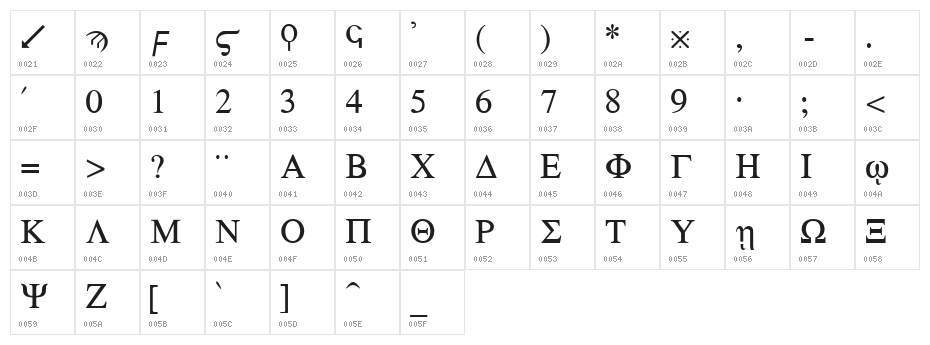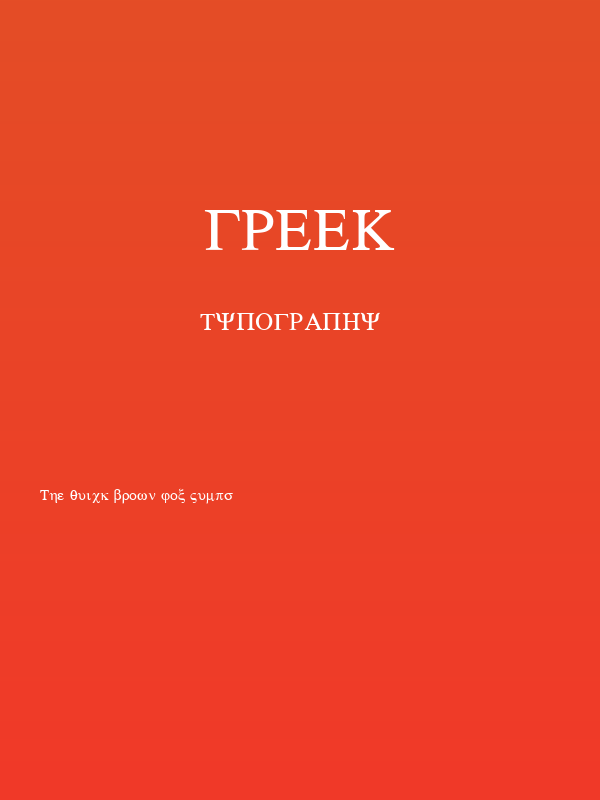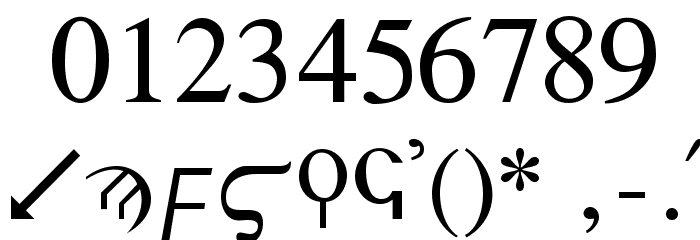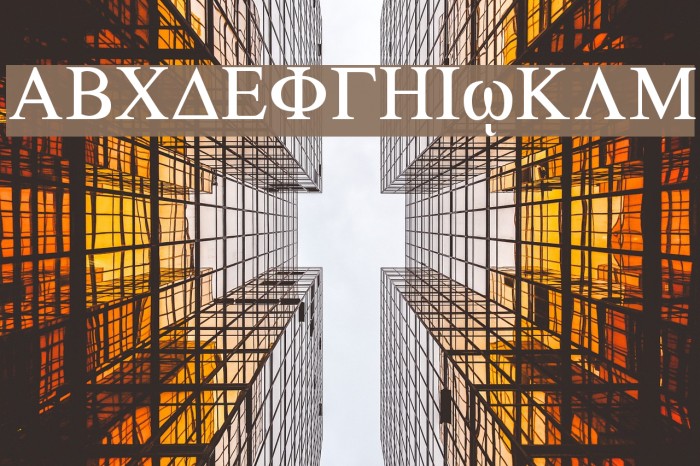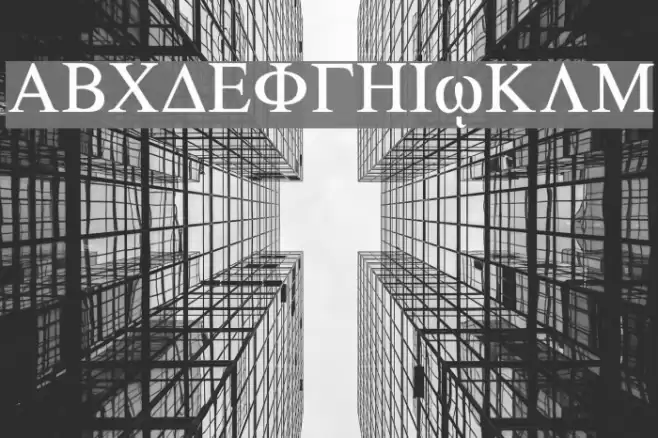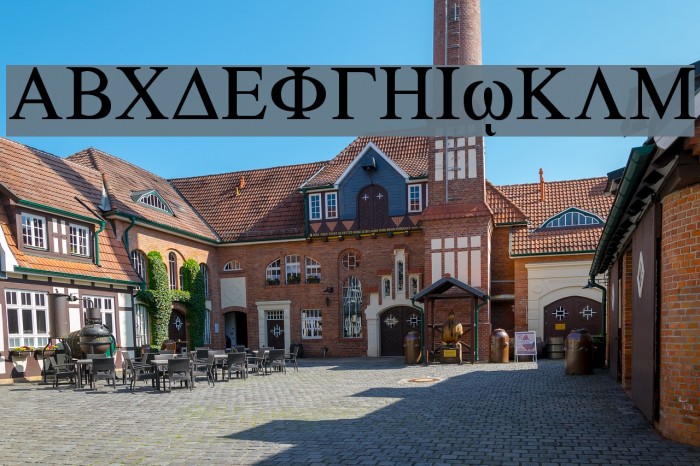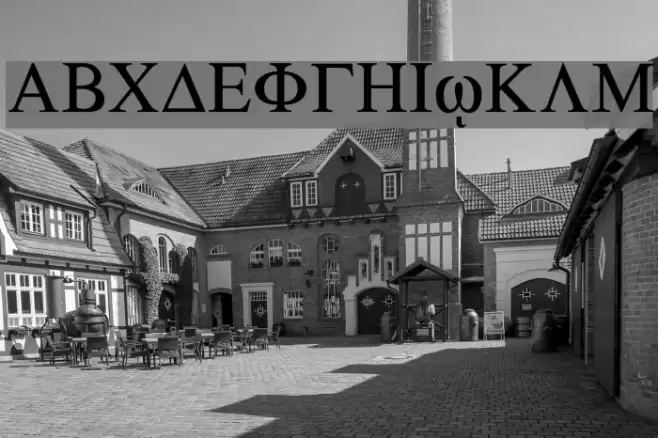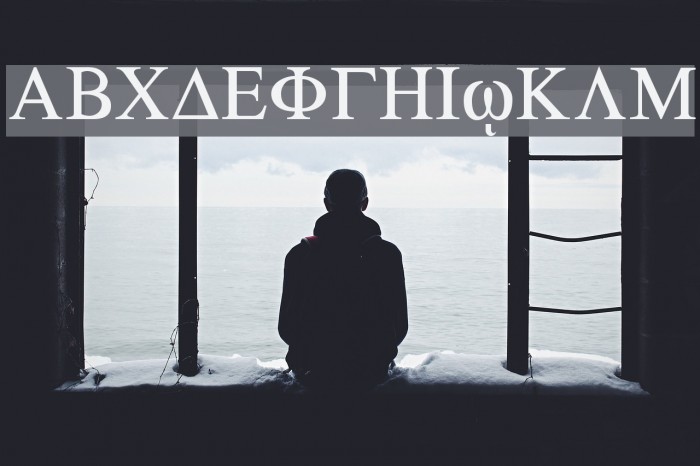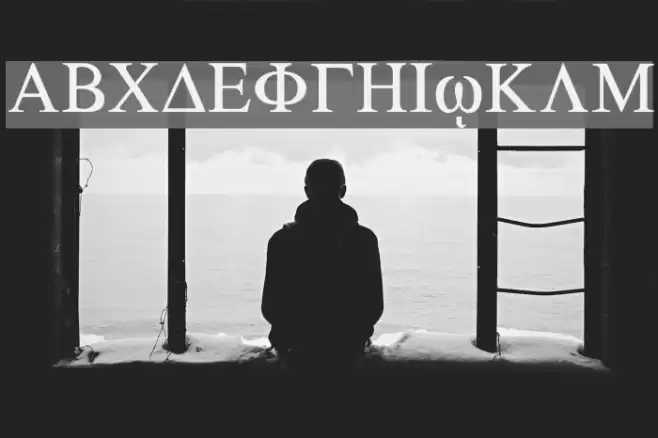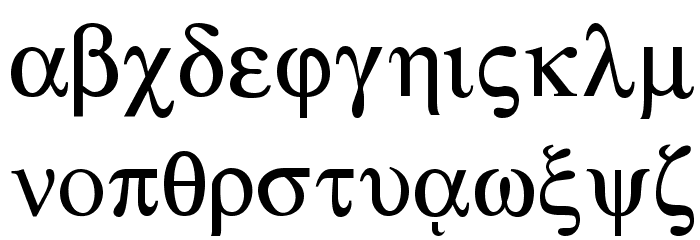
Greek Font
Greek Description
This font features a classic serif style with a strong emphasis on traditional Greek letterforms. The uppercase letters are bold and commanding, while the lowercase letters maintain a harmonious flow, showcasing elegant curves and balanced proportions. The numerals are clear and distinct, complementing the overall aesthetic. Special characters are thoughtfully designed, integrating seamlessly with the rest of the typeface. The font exudes a sense of timelessness and sophistication, making it suitable for a variety of applications where a touch of classical elegance is desired.
| Overall Style | Classic |
| Use Case | Headlines, Body text, Logos |
| Proposed Projects | Ideal for academic publications, historical documents, formal invitations, and branding projects that require a touch of classical elegance. |